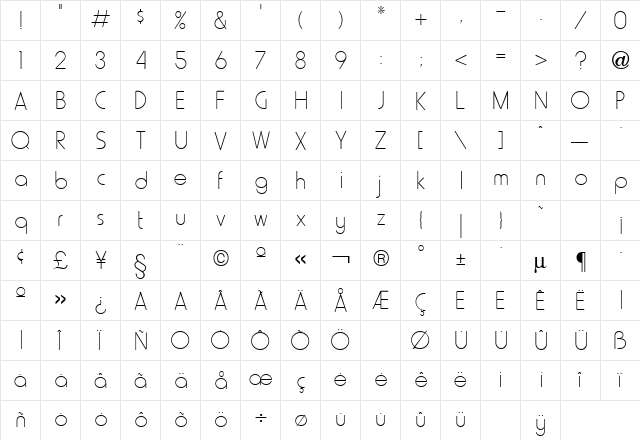
Harry Thin Regular
Design Context for Harry Thin Typeface
Harry Thin takes a measured approach to typography — its balanced proportions and neutral character make it a reliable workhorse for both digital and print work. Its slender proportions lend an understated elegance to any composition.